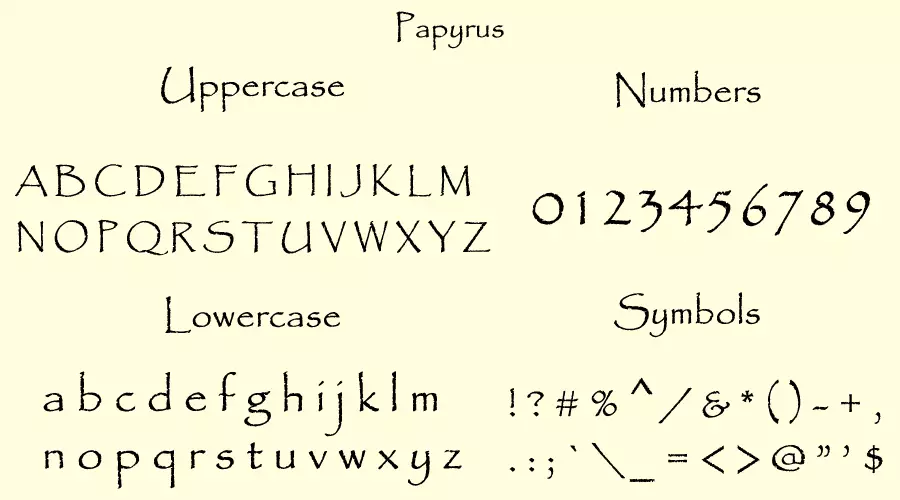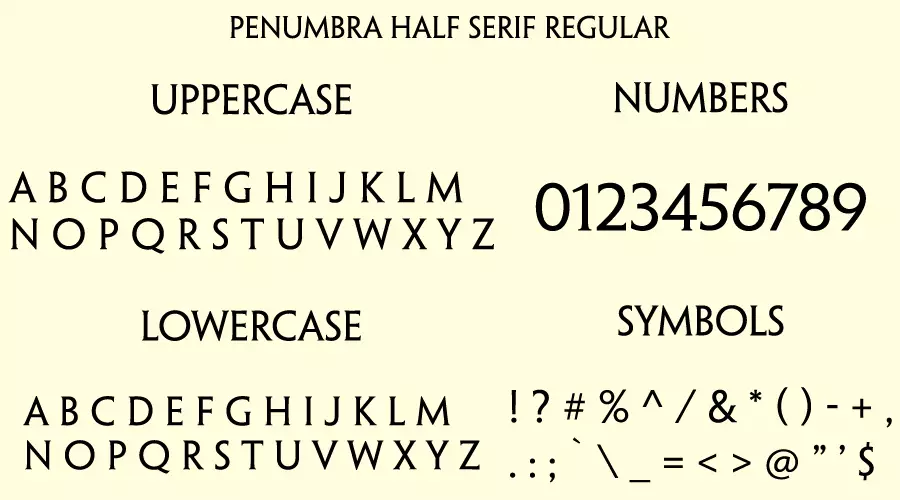
What is The Avatar The Way Of Water Font?
Avatar The Way Of Water Font comes from the long-awaited movie directed by James Cameron called Avatar: The Way Of Water. The film studio designed the film logo and title in-house. But we found a fan-made inspired font called “Avatar Water” for the main movie title “Avatar”. Designed, published, and copyrighted by MedRida in 2022.
Another part of the logo is the word, “The Way of Water,” which looks like a font called Penumbra Half Serif Regular. This font was designed by Lance Hidy and published by Adobe Systems Incorporated in 2002.
The controversial Papyrus font is also used for chapter titles and the title of the first movie.